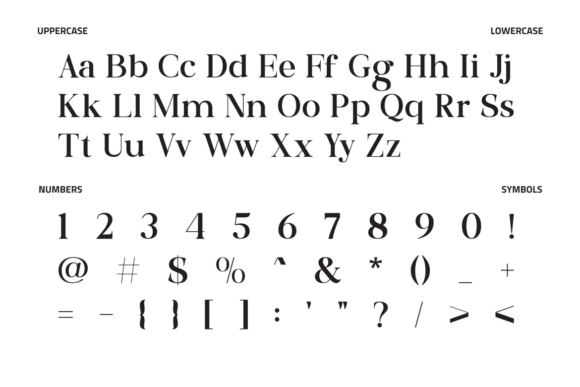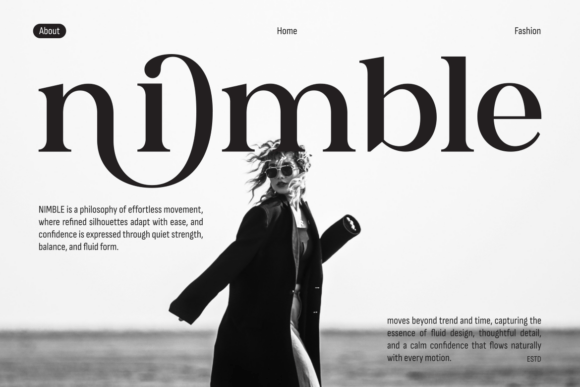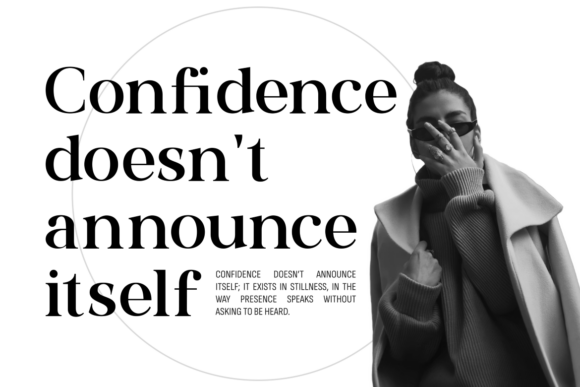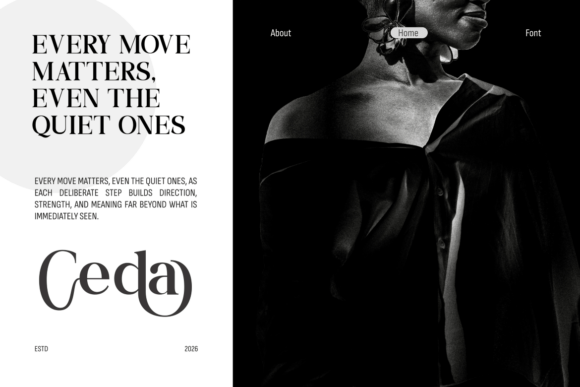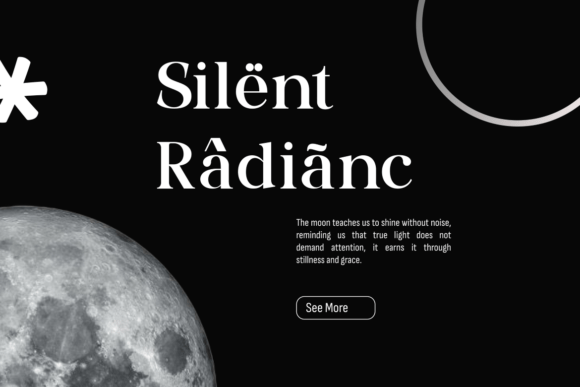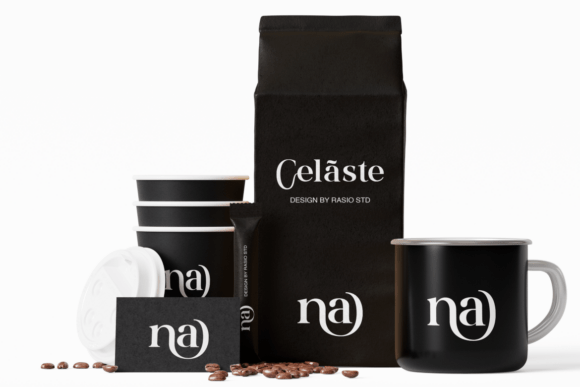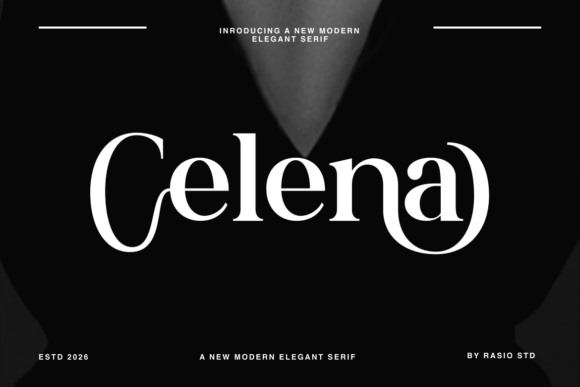
Introducing Celena Font: Elevate Your Designs with Timeless Elegance
In the world of typography, a well-crafted font can make all the difference in elevating your designs to new heights. For designers and crafters seeking to infuse their work with a touch of classic couture, Celena Font is an exceptional choice. This modern elegant display serif typeface is designed to bring sophistication and luxury to your visual creations.
The Anatomy of Elegance: Celena’s Serif Structure
At the heart of Celena’s design lies a beautifully structured serif anatomy. The font boasts solid vertical stems that provide a sense of stability and strength, while its razor-sharp terminals add a touch of refinement and precision. This harmonious balance between solidity and finesse results in a typeface that exudes elegance and poise.
Celena: The Perfect Choice for Luxury Branding
Whether you’re working on a luxury fashion magazine, an upscale cosmetics brand, or a premium jewelry label, Celena Font is an extraordinary selection. Its sophisticated design ensures that your headlines, logotypes, and advertising headers look effortlessly timeless, conveying a profound sense of professional design intelligence and legendary aesthetic prestige.
Luxury Fashion Magazine Headlines
Imagine your fashion magazine headlines adorned with a font that echoes the heights of classic couture. Celena’s elegant serifs and refined terminals evoke the luxury and sophistication of high-end fashion, making it the perfect choice for magazine titles, section headers, and feature articles.
Upscale Cosmetics Logotypes
For cosmetics brands seeking to convey a sense of high-end quality and refinement, Celena Font is an excellent option. Its beautifully crafted serifs and precise terminals ensure that your logotype stands out, exuding a sense of luxury and sophistication that aligns perfectly with premium beauty products.
Premium Jewelry Branding
When it comes to jewelry branding, the emphasis is on luxury, elegance, and refinement. Celena Font’s classic yet modern design ensures that your brand’s visual identity shines with sophistication, making it an ideal choice for logo design, packaging, and advertising materials.
Boutique Product Packaging
For boutique product packaging, Celena Font offers a unique opportunity to elevate your brand’s visual identity. Its elegant serifs and refined terminals add a touch of luxury to your packaging design, ensuring that your products stand out on store shelves and convey a sense of high-end quality.
Fine Advertising Headers
In the world of advertising, capturing attention is key. Celena Font’s sophisticated design ensures that your headers and titles grab the audience’s attention, conveying a sense of luxury and refinement that aligns perfectly with high-end products and services.
Why Choose Celena Font?
So, why should designers and crafters choose Celena Font for their projects? Here are just a few compelling reasons:
- Timeless Elegance: Celena’s classic yet modern design ensures that your text compositions look effortlessly timeless, never going out of style.
- Luxury Appeal: Its sophisticated serif anatomy and refined terminals evoke the luxury and sophistication of high-end brands, making it perfect for premium products and services.
- Professional Design Intelligence: Celena Font adds a profound sense of professional design intelligence to your text compositions, ensuring that your designs stand out from the crowd.
- Legendary Aesthetic Prestige: With Celena, you can infuse your designs with a legendary aesthetic prestige that aligns perfectly with high-end brands and luxury products.
| Author | product.rasiostudio |
In conclusion, Celena Font is an exceptional choice for designers and crafters seeking to elevate their designs with timeless elegance. Its beautifully structured serif anatomy, solid vertical stems, and razor-sharp terminals make it perfect for luxury fashion magazine headlines, upscale cosmetics logotypes, premium jewelry branding, boutique product packaging, and fine advertising headers. With Celena Font, you can add a profound sense of professional design intelligence and legendary aesthetic prestige to your text compositions, ensuring that your designs stand out with effortless sophistication.